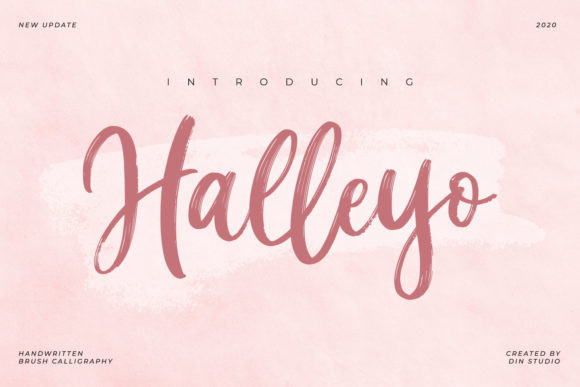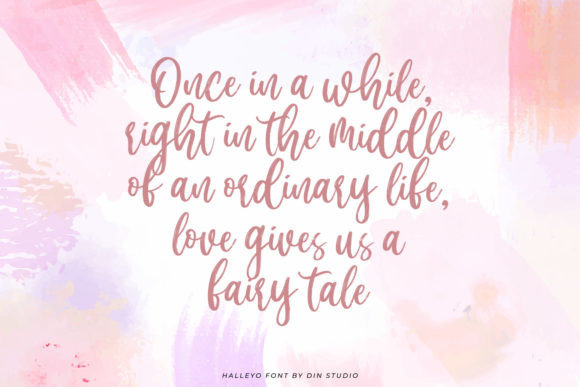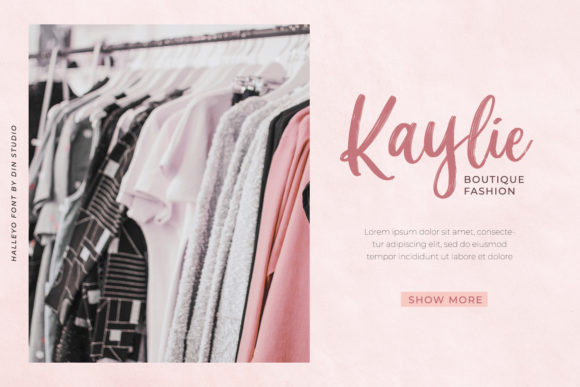
Halleyo Font
Halleyo is an elegant and sweet handwritten font, created with the help of a brush pen. Fall in love with its incredibly versatile style and use it to create spectacular designs!